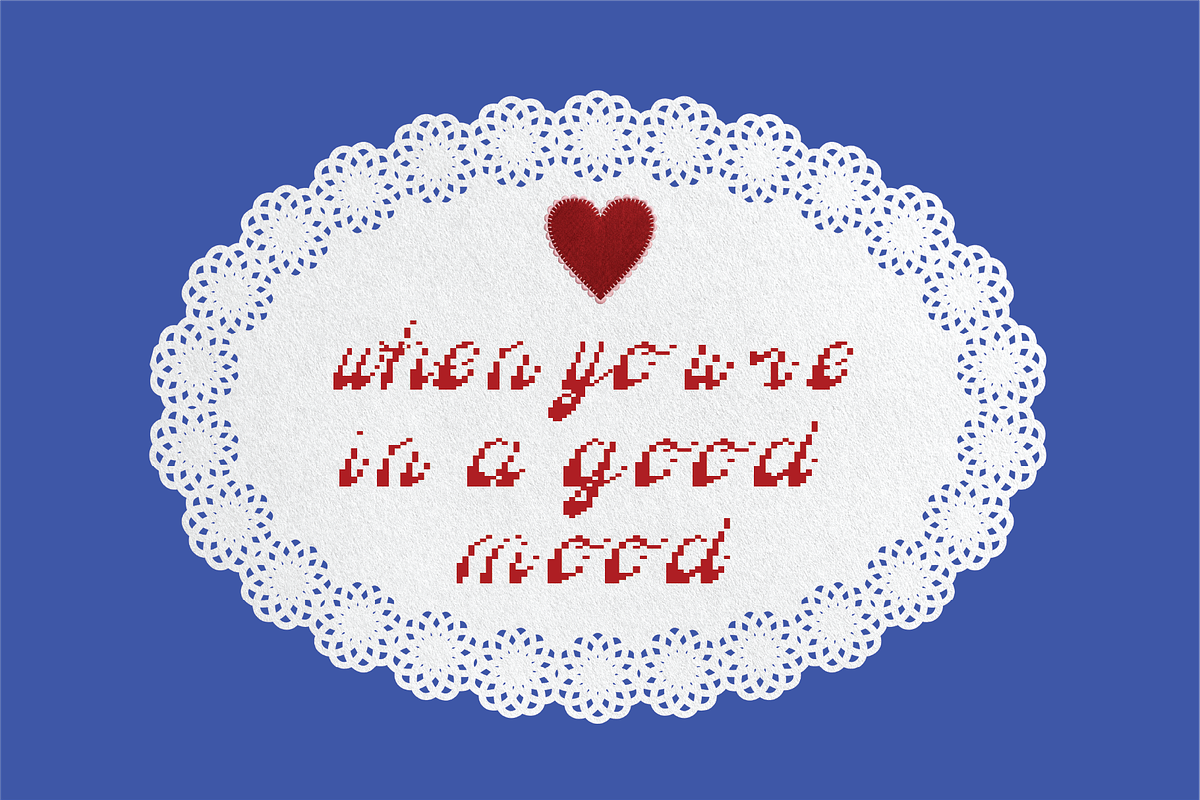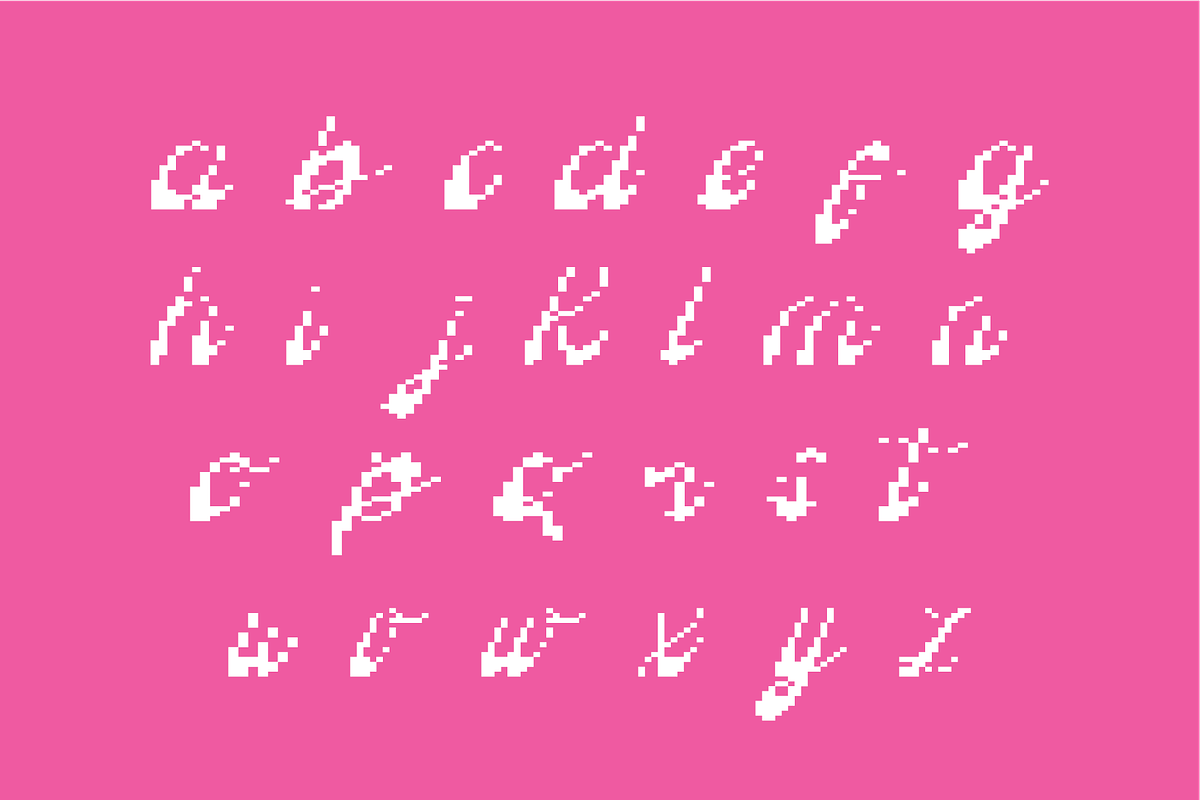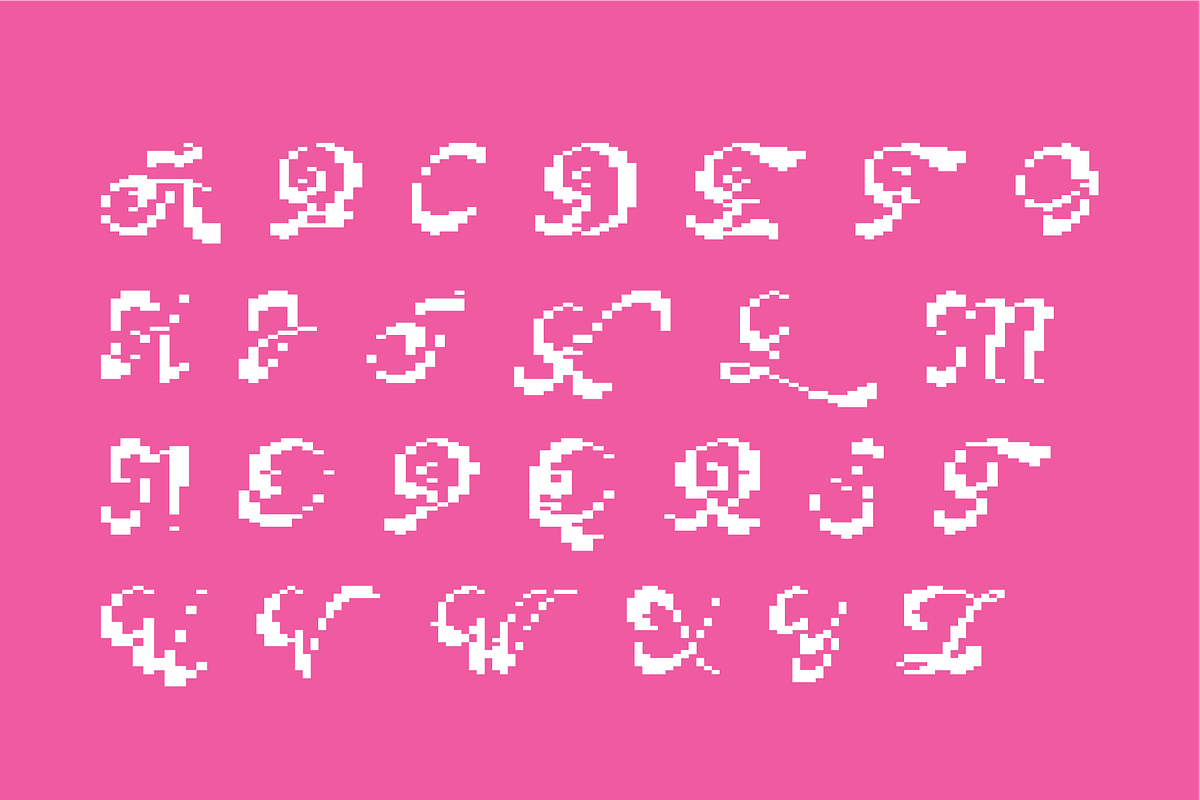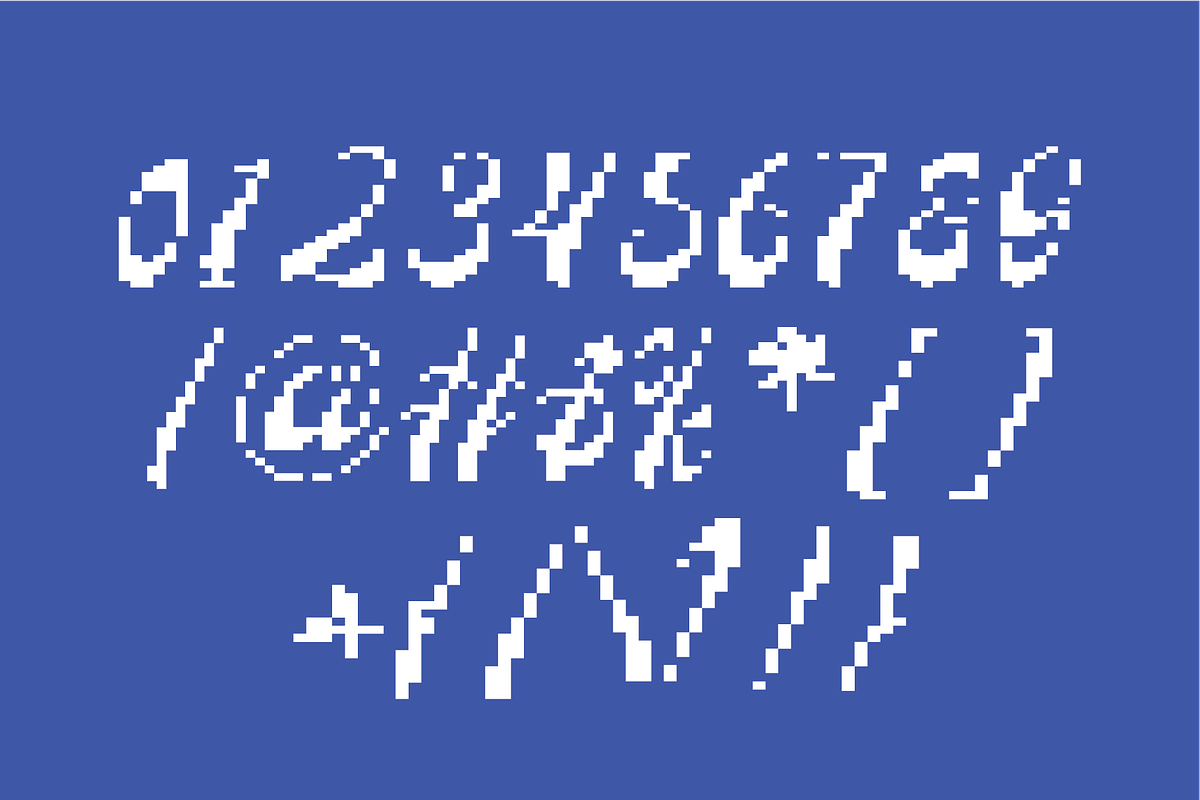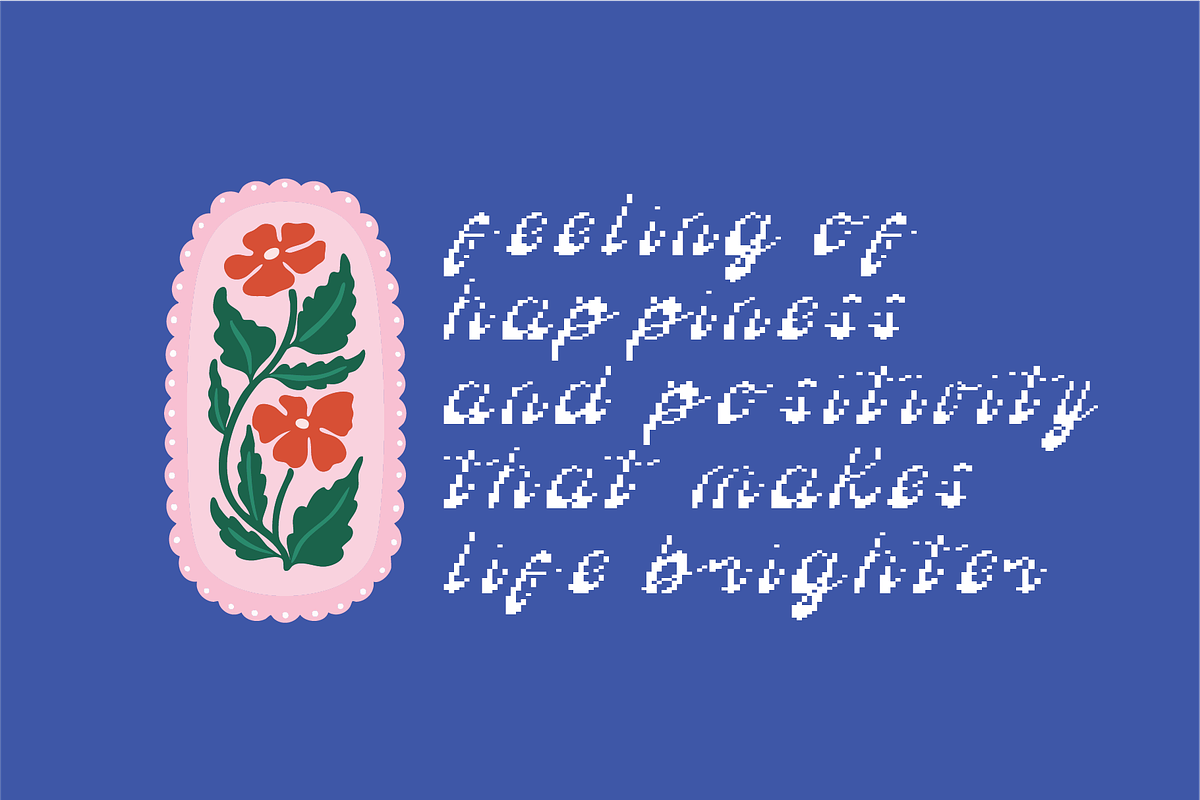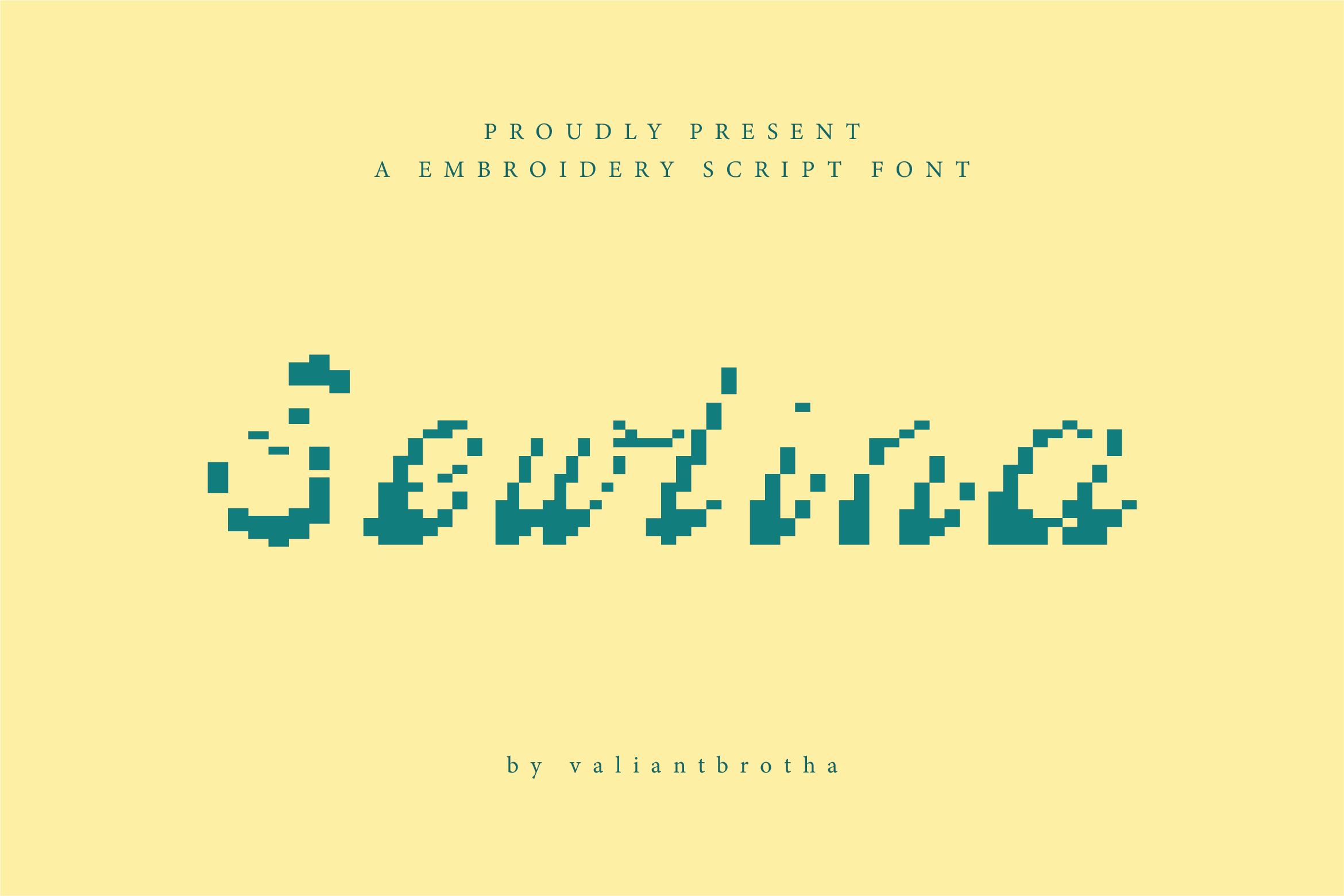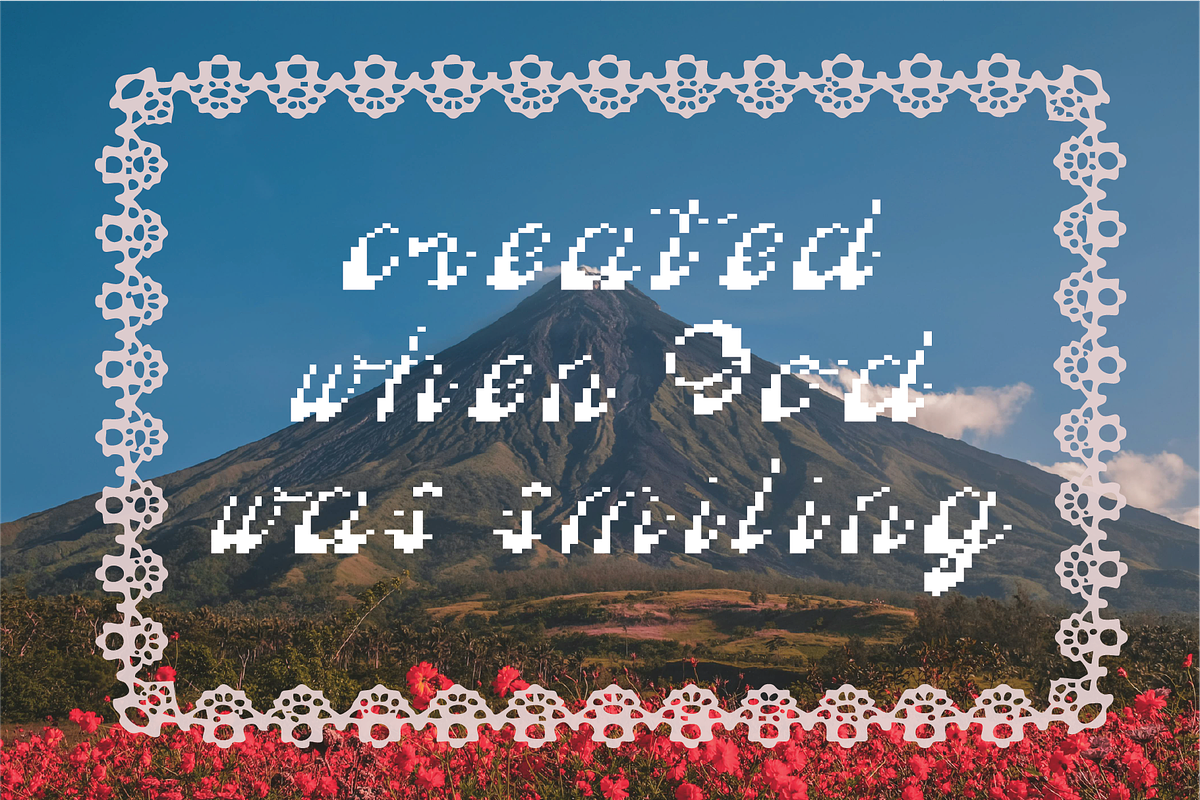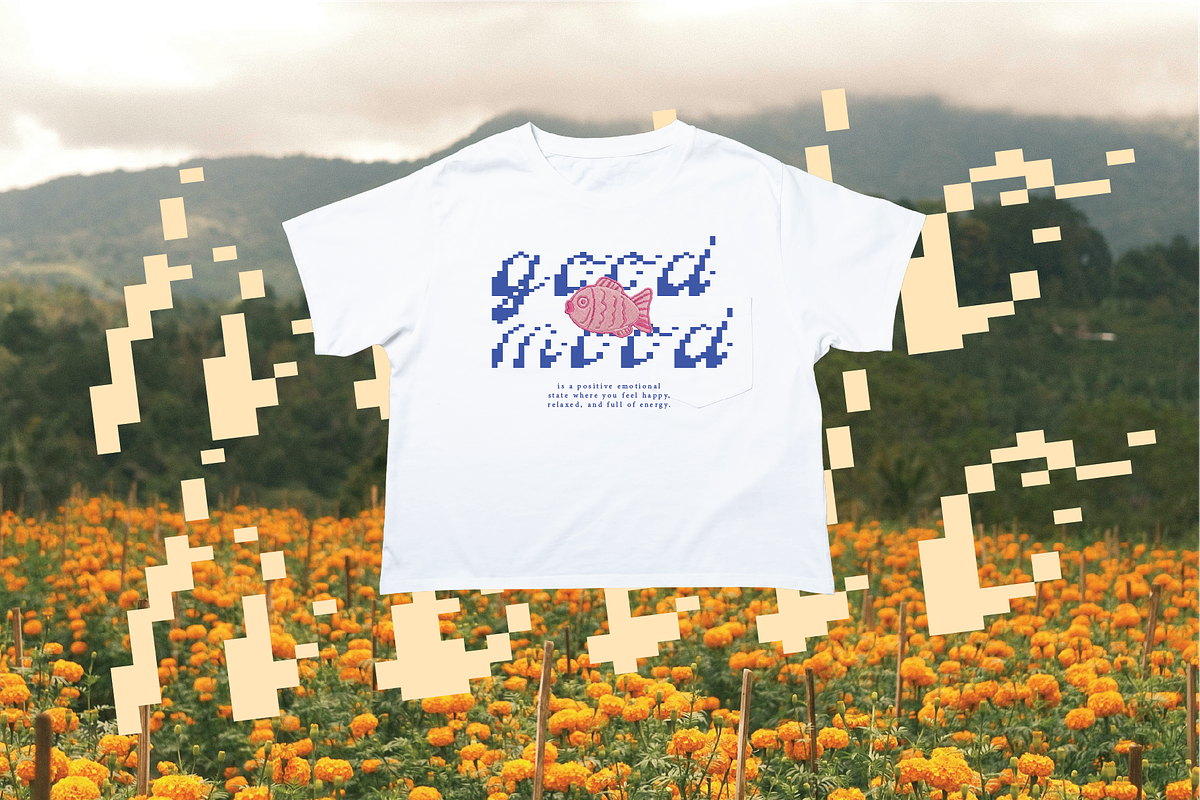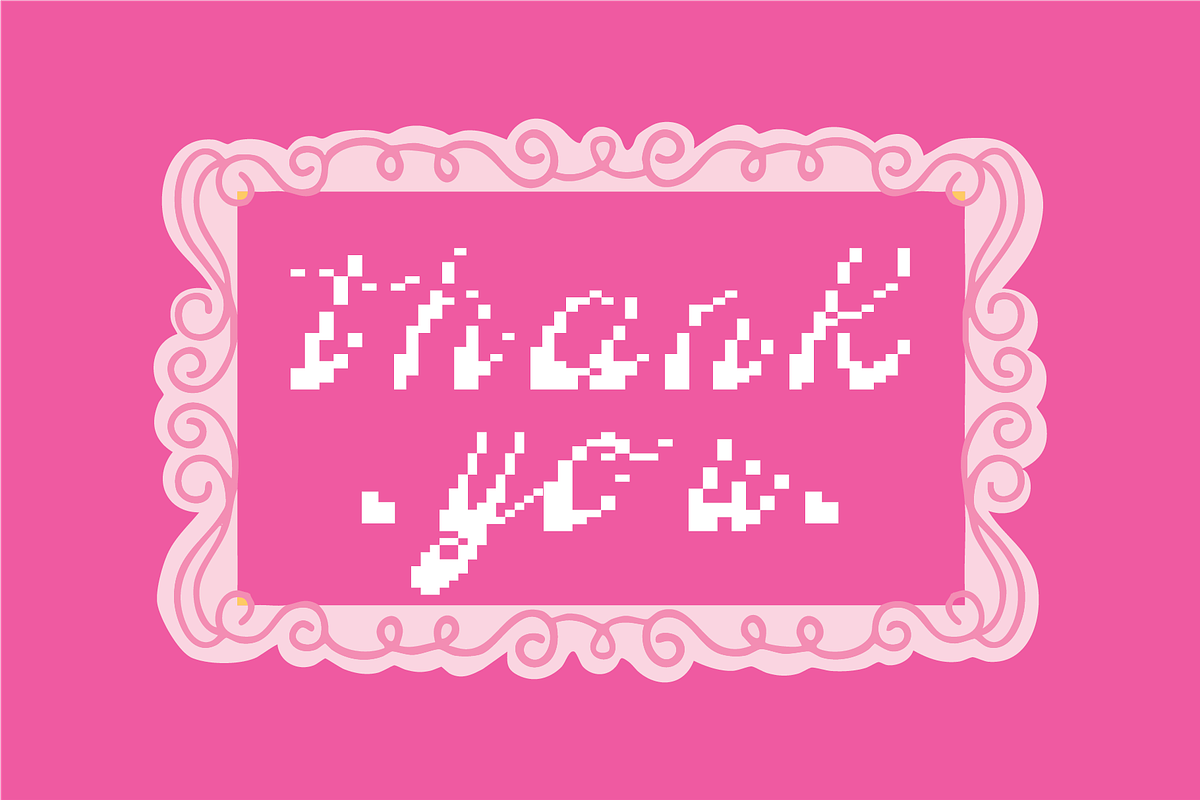
Sewlina | A Embroidery Script Font
Sewlina is an elegant embroidery-style script font with a soft pixel texture and handcrafted charm.
Numbers, marks and symbols